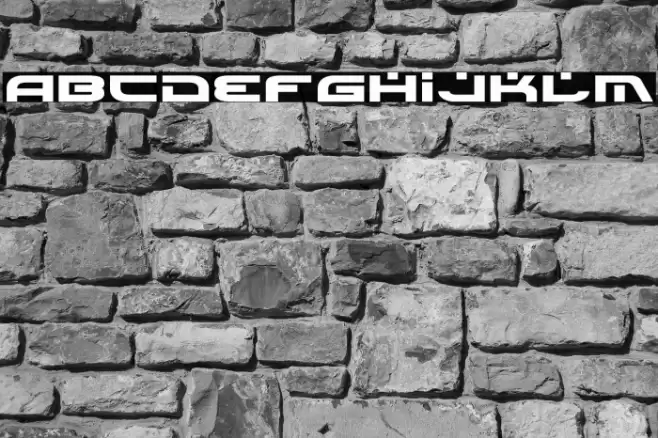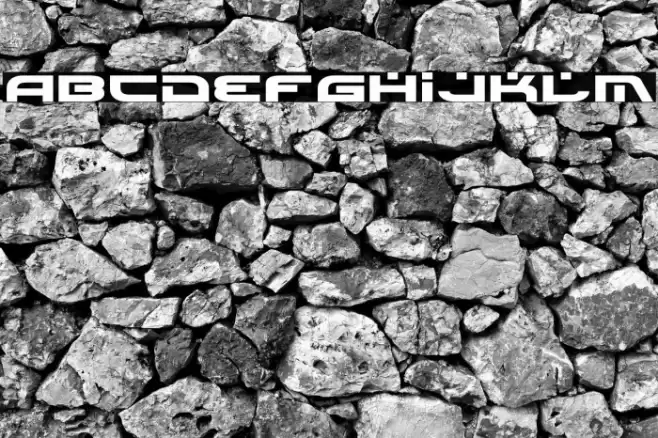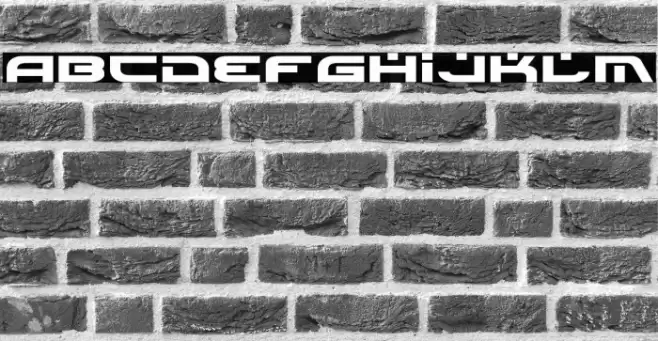
Battlefield Expanded Font
Battlefield Expanded Description
This font features a futuristic and bold design with a distinct geometric style. The characters are wide and have a strong presence, making them ideal for attention-grabbing headlines. The uppercase and lowercase letters share a consistent style, with angular cuts and a modern aesthetic. The numerals are equally bold, maintaining the geometric theme. Special characters are designed to complement the overall style, ensuring uniformity across all glyphs. This font is perfect for projects that require a modern, tech-inspired look.
A bold, futuristic font with geometric and angular design elements from Uncategorized fonts.
- Font: Battlefield Expanded
- Proposed Projects: Ideal for sci-fi movie posters, video game titles, technology branding, and futuristic event flyers.
- Width: Expanded
- Overall Style: Futuristic